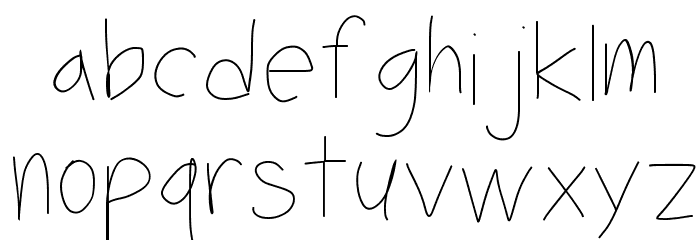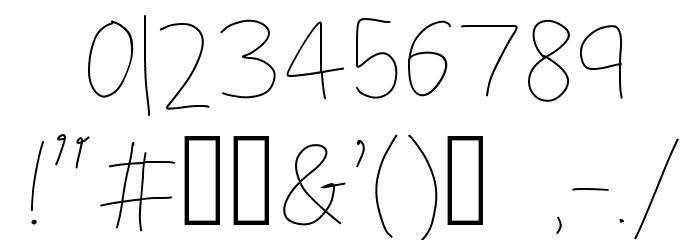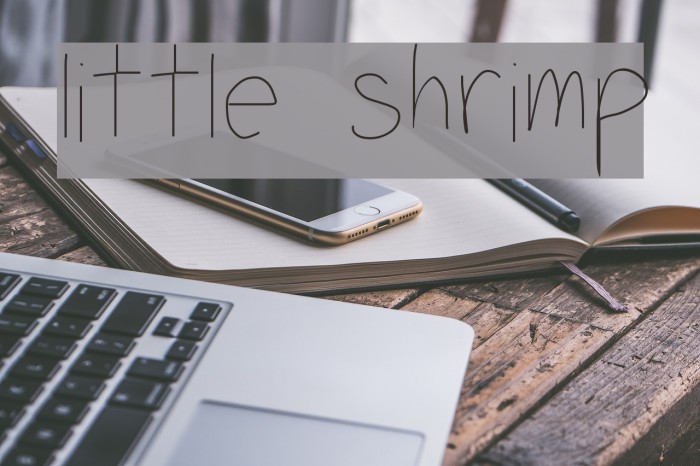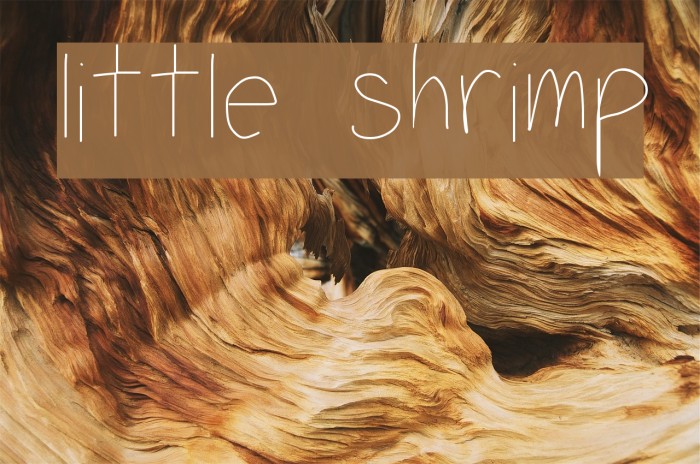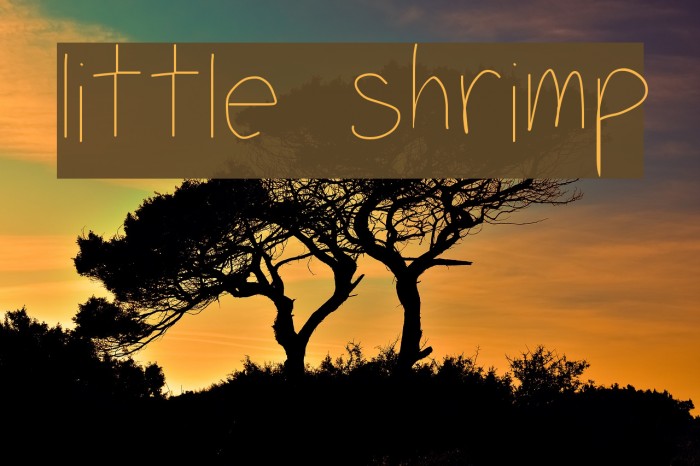
little shrimp Font
This font features a playful and casual handwritten style, characterized by its thin strokes and slightly irregular letterforms. The uppercase letters are tall and slightly narrow, while the lowercase letters maintain a consistent height with a gentle flow. The numbers are simple and align well with the overall style, providing a cohesive look. Special characters are included, maintaining the same whimsical and informal aesthetic. This font is ideal for projects that require a personal touch, such as greeting cards, invitations, or children's books.
A playful, handwritten font with thin strokes and a casual style.
- Proposed Projects: Ideal for greeting cards, invitations, children's books, and personal projects.
- Overall Style: Casual
- Use Case: Headlines, Informal text, Personal projects